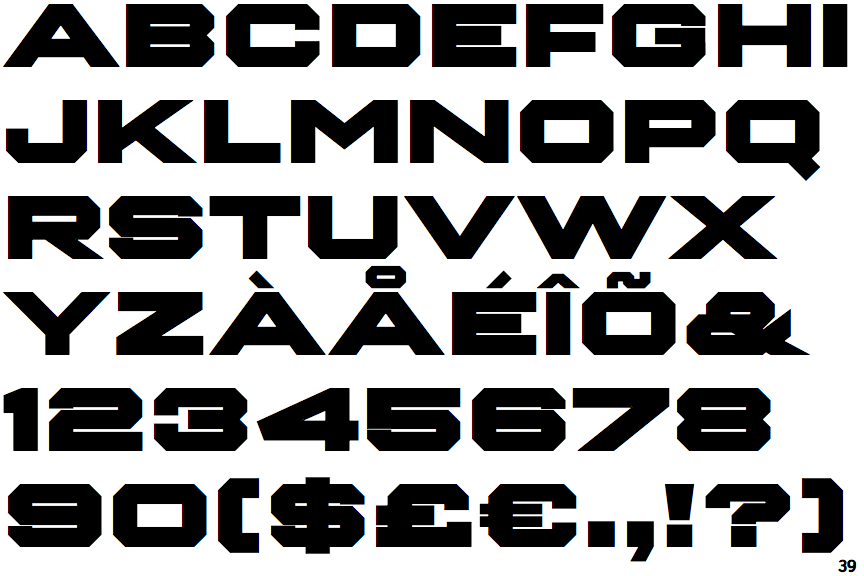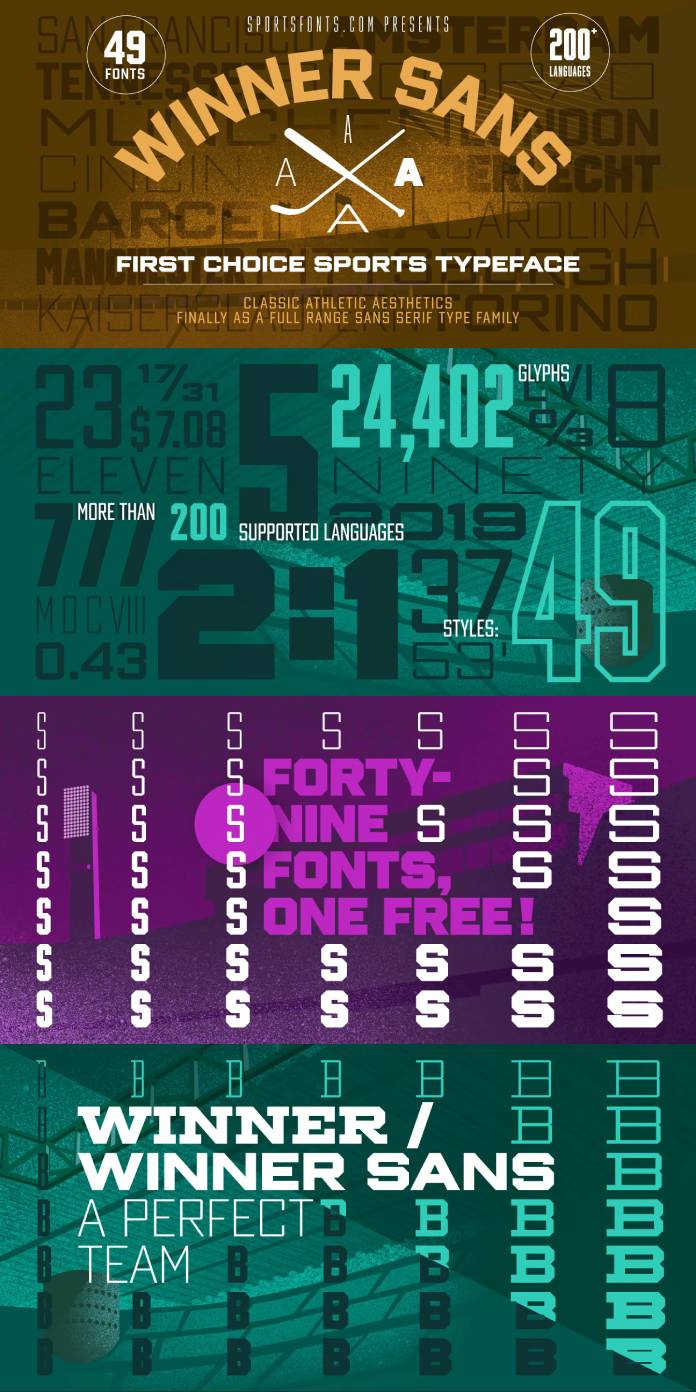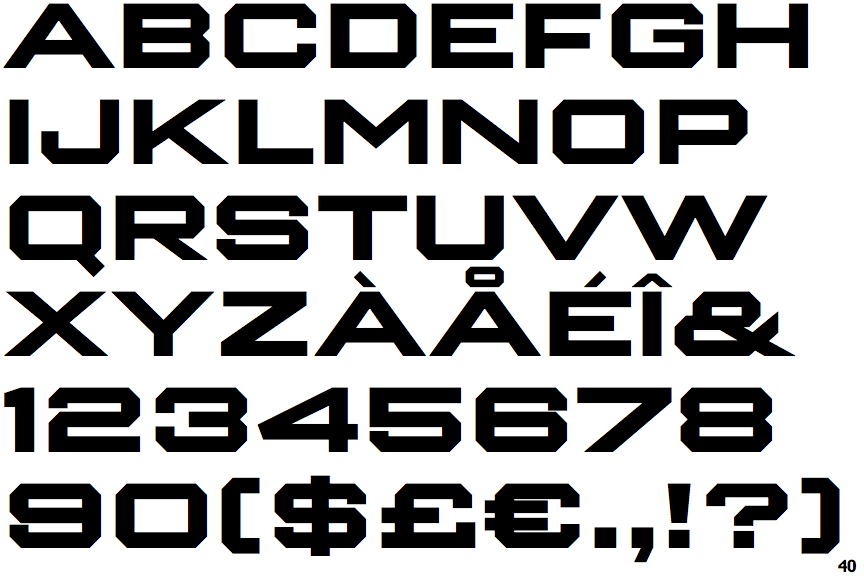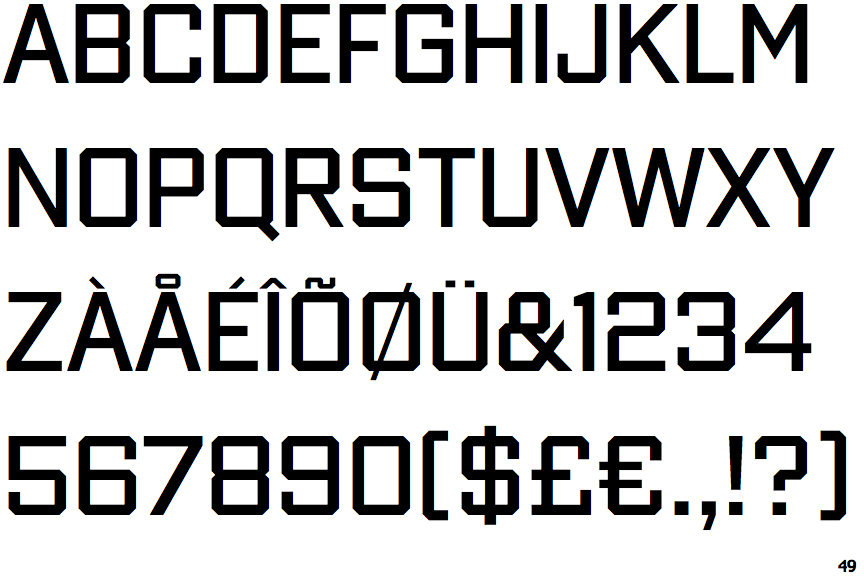
Winner Sans Font
Winner Sans Font - Winner sans™ and winner™—classic athletic aesthetics, finally as a versatile contemporary super family. Winner™ and winner sans™ —classic athletic aesthetics, finally as a versatile contemporary super family. Winner sans contains 50 styles and family. Winner sans™ and winner™—classic athletic aesthetics, finally as a versatile contemporary super family. Winner sans font family was designed by christoph koeberlin, sven fuchs and published by sportsfonts. Just when you thought there was nothing. Just when you thought there was nothing.
Just when you thought there was nothing. Winner sans™ and winner™—classic athletic aesthetics, finally as a versatile contemporary super family. Winner™ and winner sans™ —classic athletic aesthetics, finally as a versatile contemporary super family. Winner sans font family was designed by christoph koeberlin, sven fuchs and published by sportsfonts. Winner sans contains 50 styles and family. Winner sans™ and winner™—classic athletic aesthetics, finally as a versatile contemporary super family.
Just when you thought there was nothing. Winner sans font family was designed by christoph koeberlin, sven fuchs and published by sportsfonts. Winner sans™ and winner™—classic athletic aesthetics, finally as a versatile contemporary super family. Winner sans contains 50 styles and family. Winner™ and winner sans™ —classic athletic aesthetics, finally as a versatile contemporary super family. Winner sans™ and winner™—classic athletic aesthetics, finally as a versatile contemporary super family.
Winner sans font family was designed by christoph koeberlin, sven fuchs and published by sportsfonts. Just when you thought there was nothing. Winner sans™ and winner™—classic athletic aesthetics, finally as a versatile contemporary super family. Winner™ and winner sans™ —classic athletic aesthetics, finally as a versatile contemporary super family. Just when you thought there was nothing.
Just when you thought there was nothing. Winner sans™ and winner™—classic athletic aesthetics, finally as a versatile contemporary super family. Winner sans contains 50 styles and family. Winner™ and winner sans™ —classic athletic aesthetics, finally as a versatile contemporary super family. Just when you thought there was nothing.
Winner™ and winner sans™ —classic athletic aesthetics, finally as a versatile contemporary super family. Just when you thought there was nothing. Winner sans font family was designed by christoph koeberlin, sven fuchs and published by sportsfonts. Winner sans contains 50 styles and family.
Winner™ and winner sans™ —classic athletic aesthetics, finally as a versatile contemporary super family. Winner sans™ and winner™—classic athletic aesthetics, finally as a versatile contemporary super family. Just when you thought there was nothing. Winner sans contains 50 styles and family.
Winner sans™ and winner™—classic athletic aesthetics, finally as a versatile contemporary super family. Winner sans™ and winner™—classic athletic aesthetics, finally as a versatile contemporary super family. Winner™ and winner sans™ —classic athletic aesthetics, finally as a versatile contemporary super family. Just when you thought there was nothing. Winner sans font family was designed by christoph koeberlin, sven fuchs and published.
Winner sans contains 50 styles and family. Just when you thought there was nothing. Winner sans font family was designed by christoph koeberlin, sven fuchs and published by sportsfonts. Just when you thought there was nothing. Winner sans™ and winner™—classic athletic aesthetics, finally as a versatile contemporary super family.
Winner sans contains 50 styles and family. Just when you thought there was nothing. Winner sans font family was designed by christoph koeberlin, sven fuchs and published by sportsfonts. Winner sans™ and winner™—classic athletic aesthetics, finally as a versatile contemporary super family.
Winner sans™ and winner™—classic athletic aesthetics, finally as a versatile contemporary super family. Winner sans font family was designed by christoph koeberlin, sven fuchs and published by sportsfonts. Just when you thought there was nothing. Winner sans™ and winner™—classic athletic aesthetics, finally as a versatile contemporary super family. Winner sans contains 50 styles and family.
Winner sans font family was designed by christoph koeberlin, sven fuchs and published by sportsfonts. Winner™ and winner sans™ —classic athletic aesthetics, finally as a versatile contemporary super family. Just when you thought there was nothing. Winner sans contains 50 styles and family. Just when you thought there was nothing.
Winner sans™ and winner™—classic athletic aesthetics, finally as a versatile contemporary super family. Winner sans contains 50 styles and family. Winner sans™ and winner™—classic athletic aesthetics, finally as a versatile contemporary super family. Winner sans font family was designed by christoph koeberlin, sven fuchs and published by sportsfonts.
Winner™ And Winner Sans™ —Classic Athletic Aesthetics, Finally As A Versatile Contemporary Super Family.
Just when you thought there was nothing.